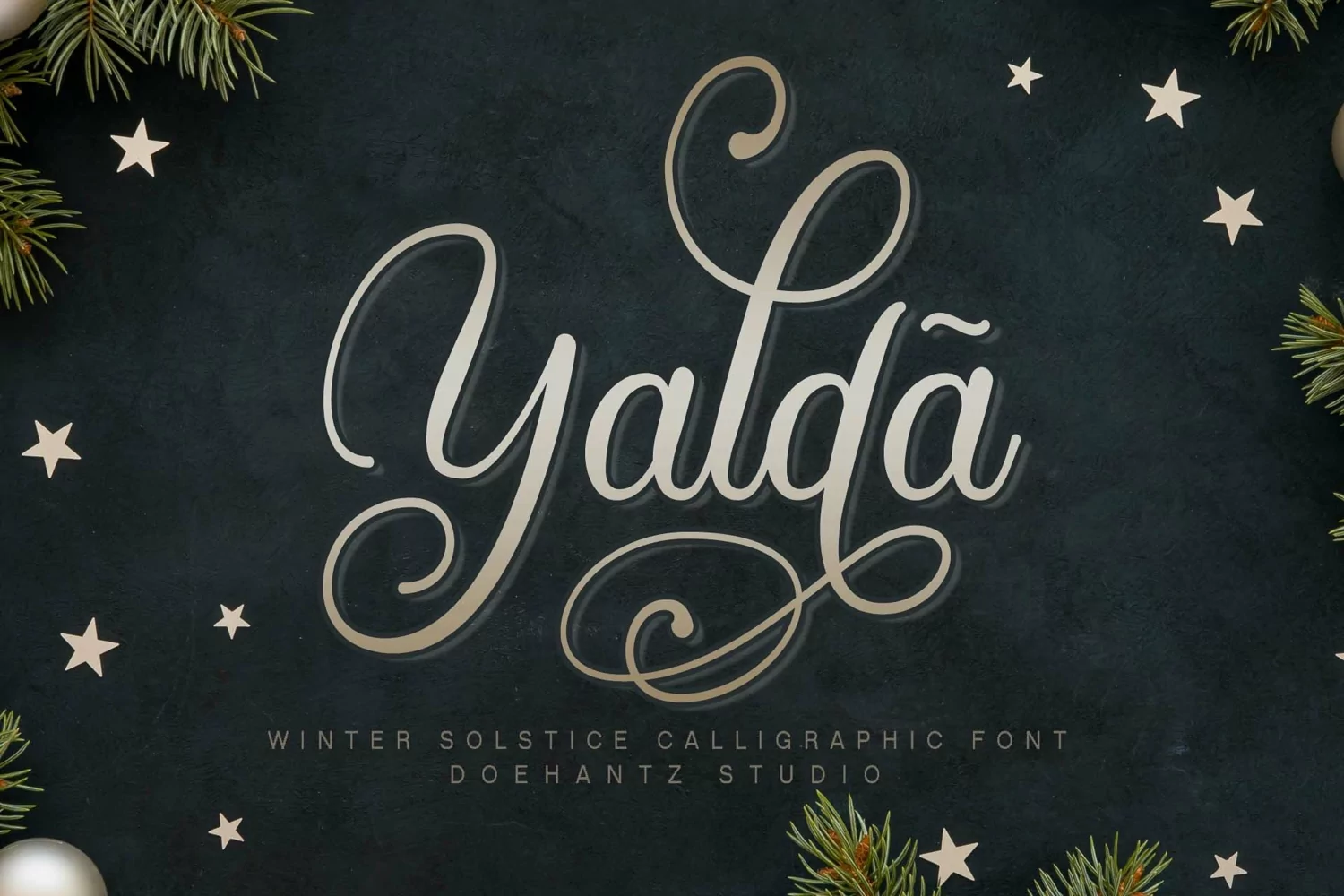
Yaldã is a beautiful, sweet, and curly handwritten font. This sweety font will look gorgeous on a variety of design ideas. It will add a joyful and romantic touch to each of your projects!
Yaldã includes standard character and variety of alternate characters such as swash at the beginning and ending of every letter. To see more alternate please enjoy see the preview of this font. Yaldã also includes multilingual support.